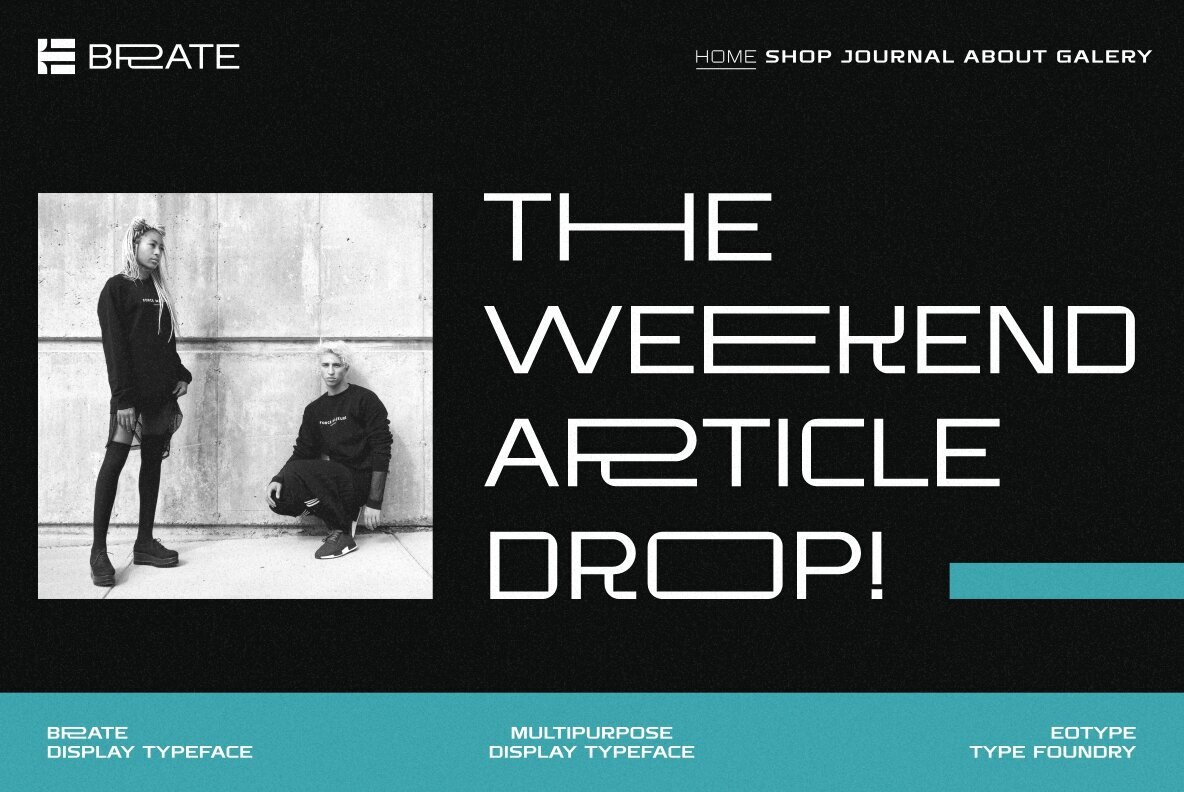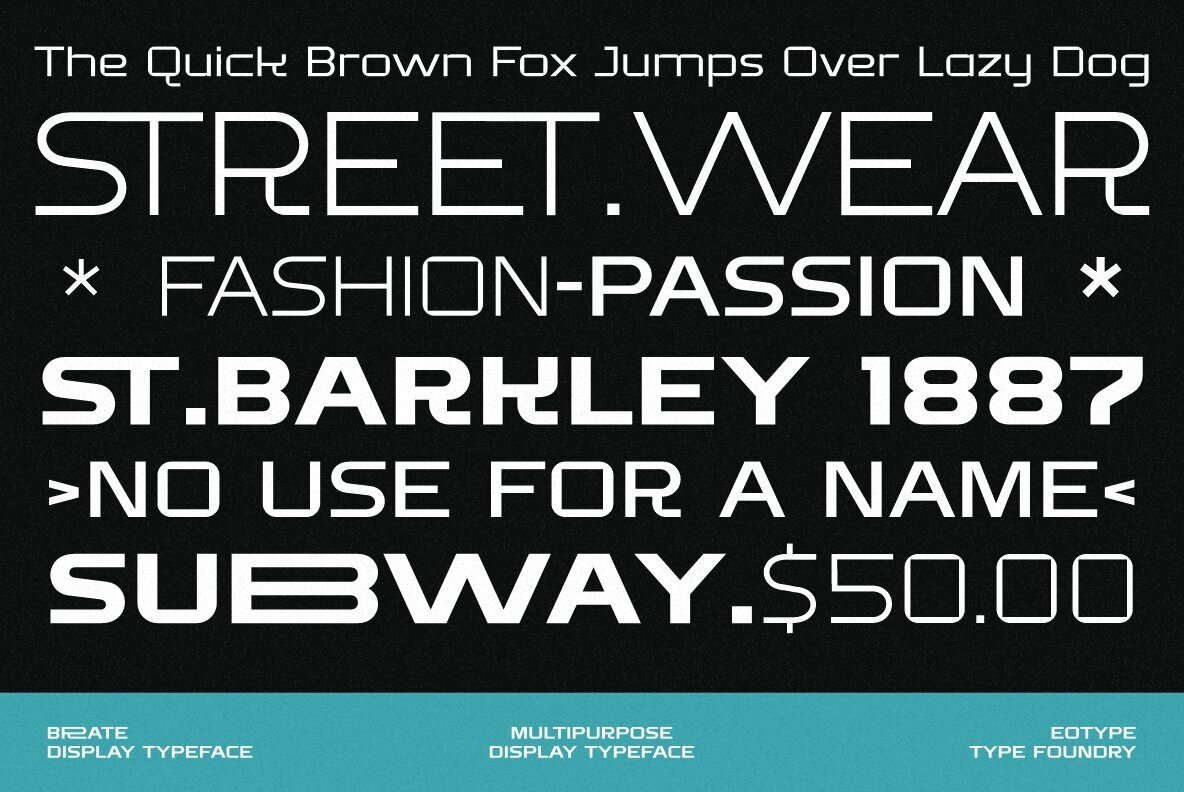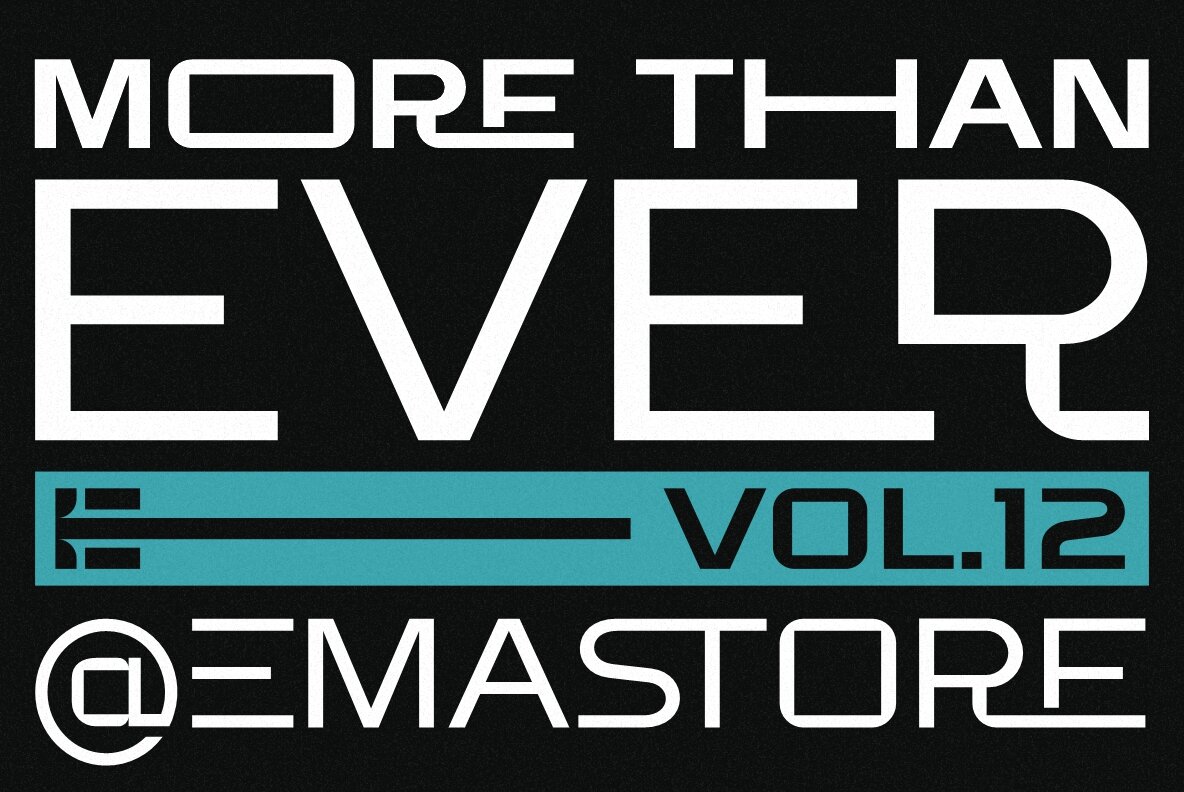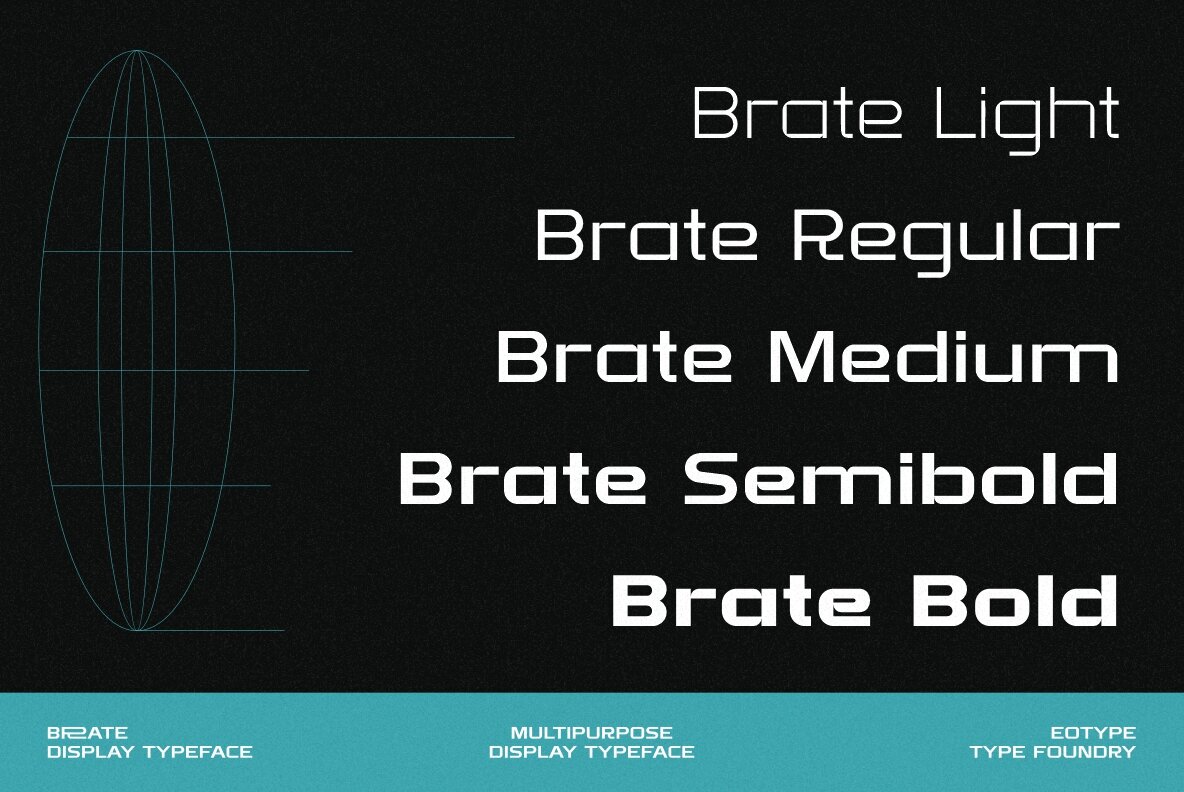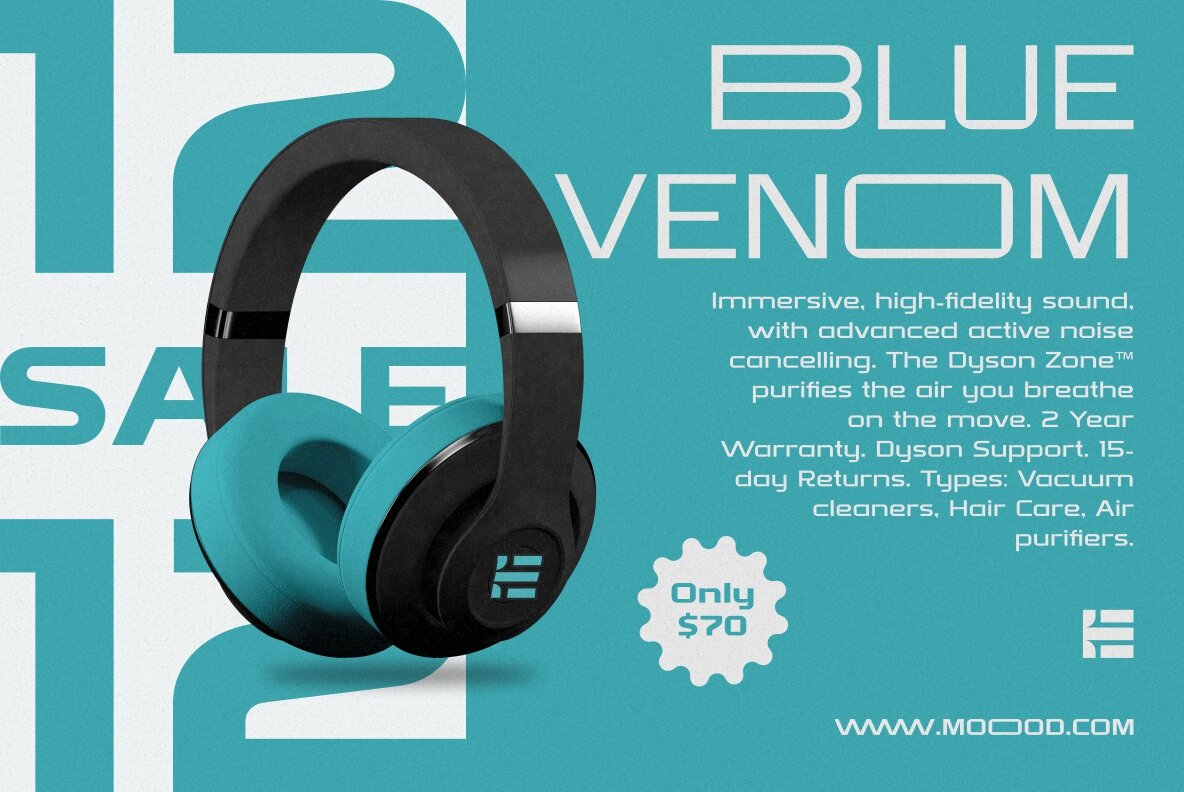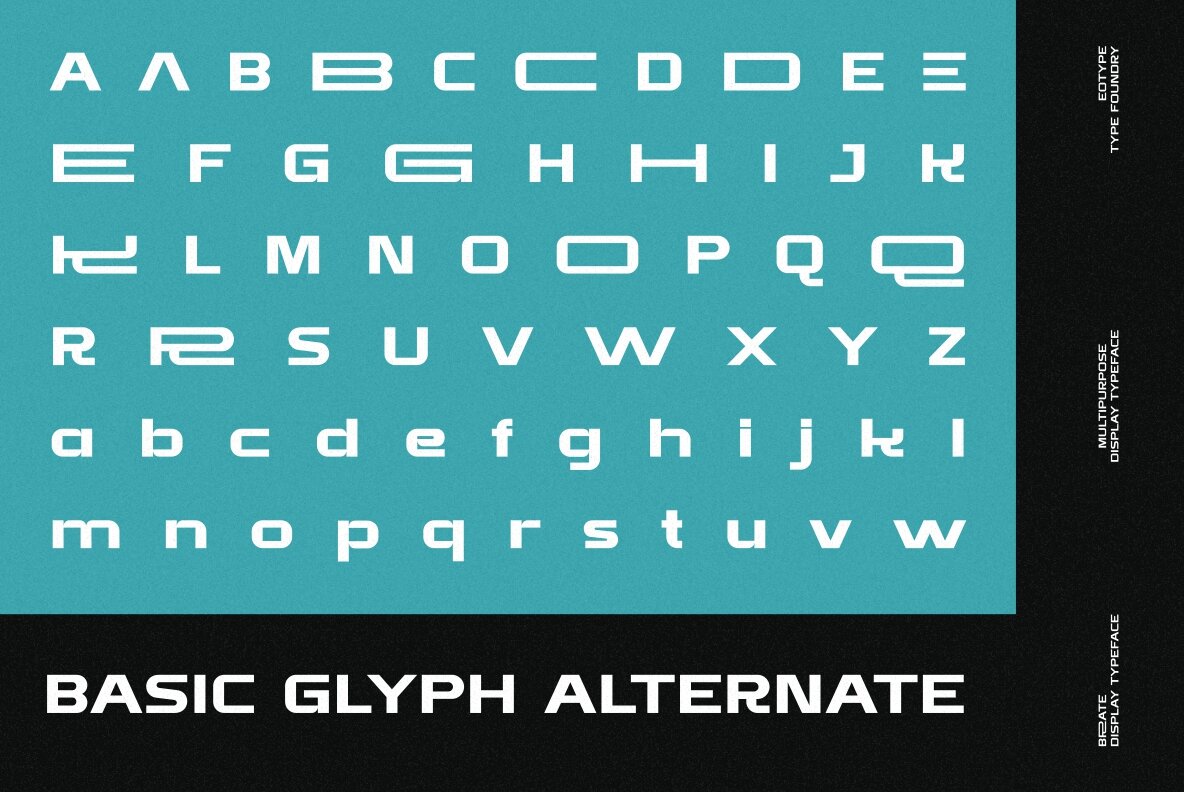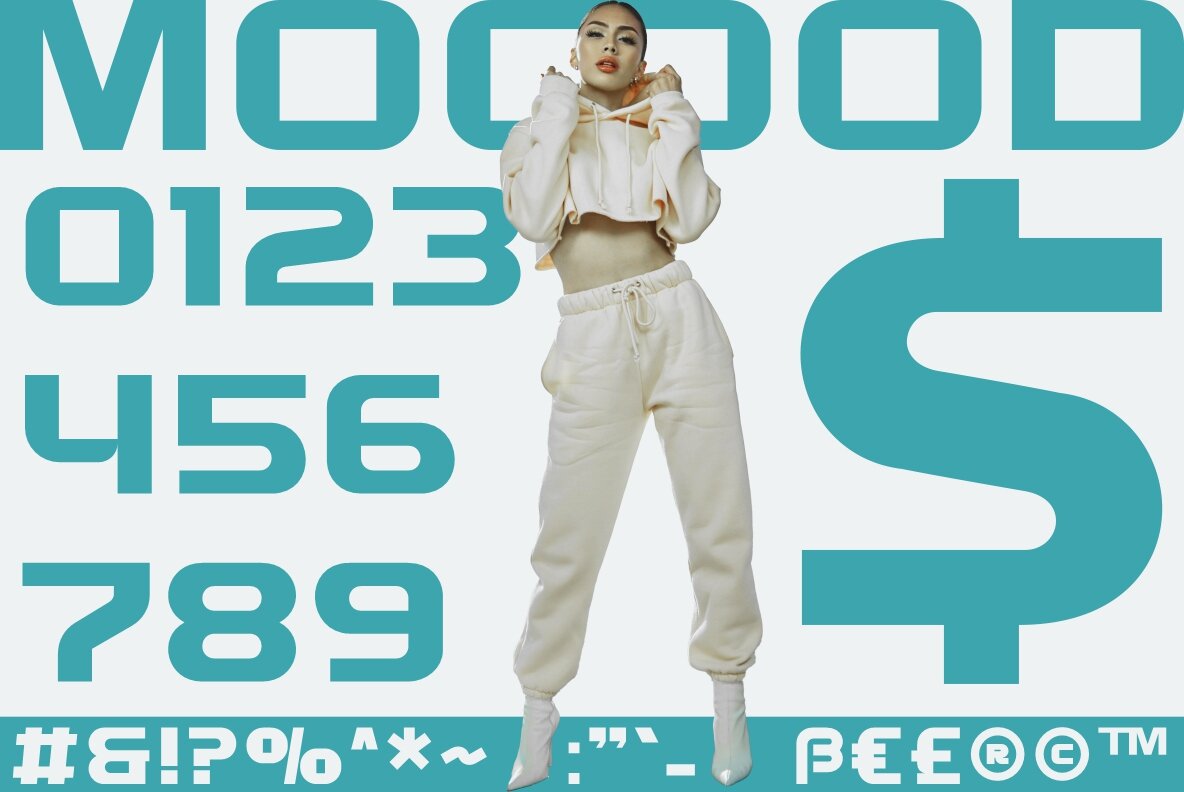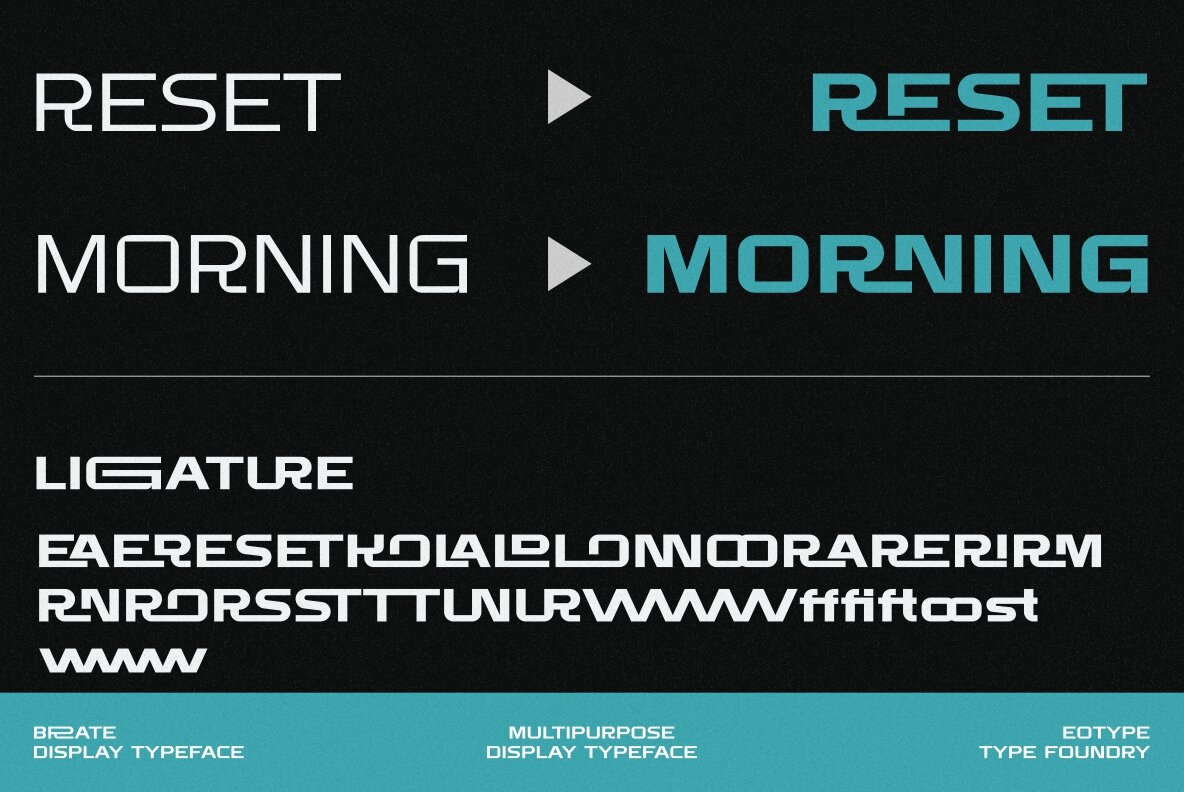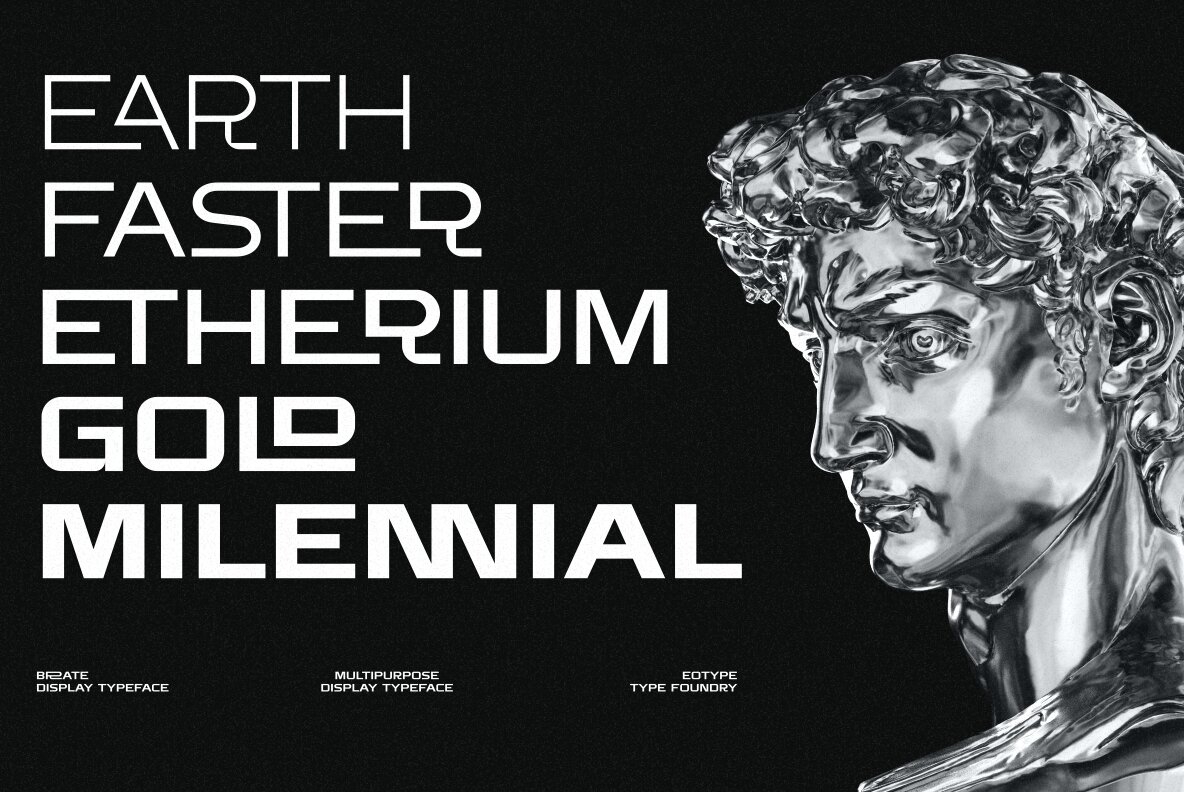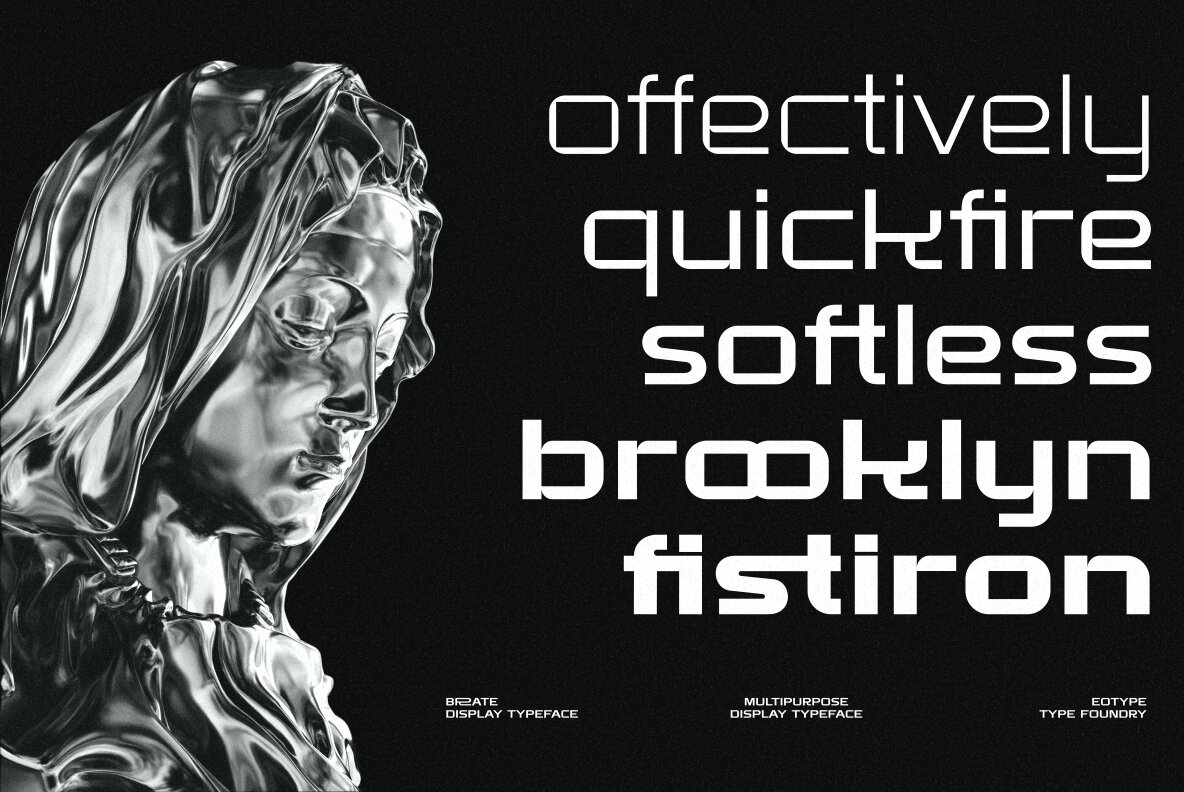
Brate Font
Brate is a new modern grotesque typeface consisting of 5 styles. The glyph shape characterized by strong geometric outline with a little smooth rounded edges. Brate font suitable for various projects such as logos, brands, posters and many more. This font comes with alternate and ligature features.